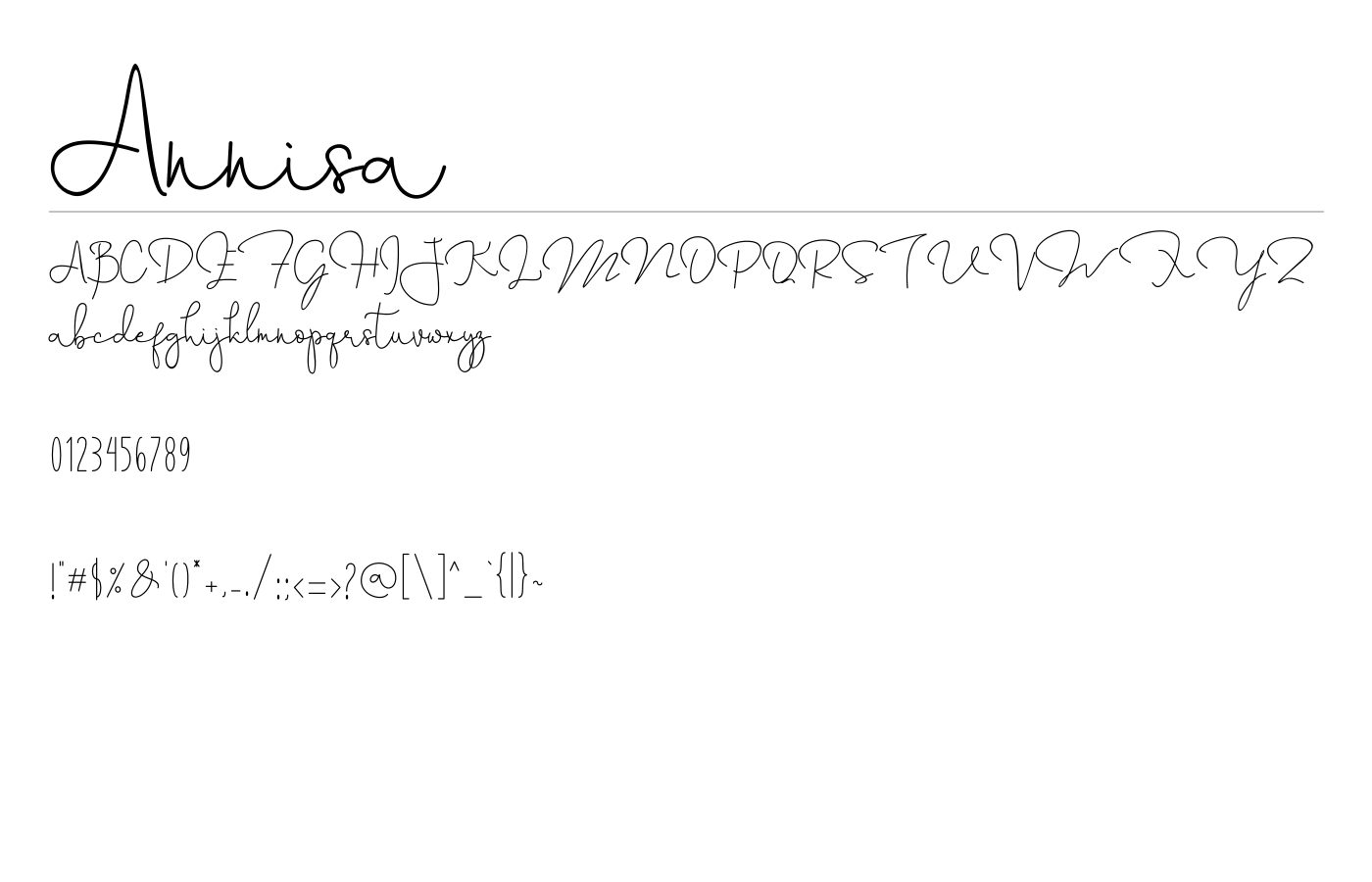
Annisa Font is a delicate, hand-drawn script typeface featuring thin, flowing lines and elegant swashes that give it a charming, graceful personality. Its tall, narrow letterforms with a whimsical touch make it perfect for invitations, branding, and creative projects that need a soft, personal feel with a modern handwritten style. This font shines in uses where an intimate, artistic, and lightly casual tone is desired.
Annisa Font
About Annisa Font
| Font family | Annisa Font |
| Designer | Aldedesign 2018 |